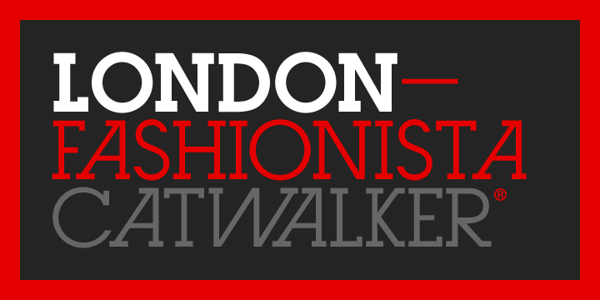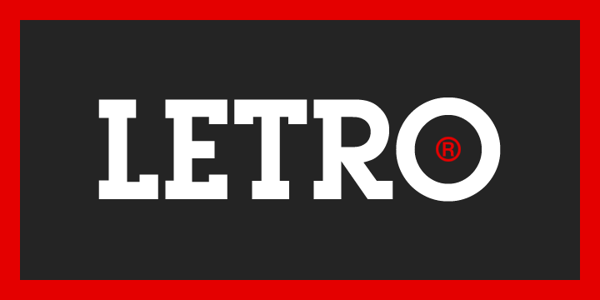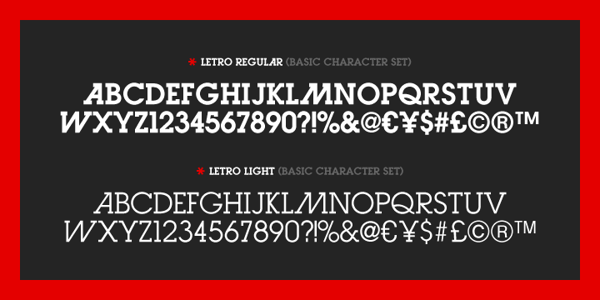
Letro Font – Slab Serif Font
Letro Font.
Letro is an amazing modern geometric slab serif font available in two weights (light, regular). The font is inspired by early Swiss sans-serif and slab-serif typefaces. Letro is perfect for use in magazines, posters, flyers, applications, visual identity projects, and for use as Webfont. The font supports 25 languages.
Letro Font - modern slab serif font
Letro Font – modern slab serif font
Letro Font - Type Examples
Letro Font – Type Examples
Letro Font - modern slab serif typeface
Letro Font – modern slab serif typeface
Letro Font Light
Letro Font Regular